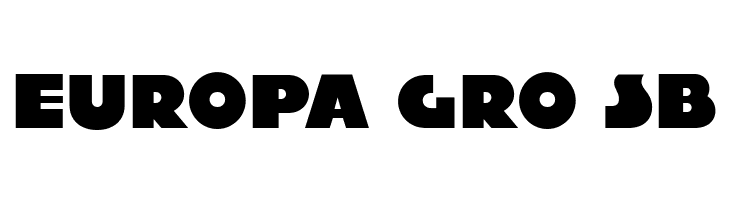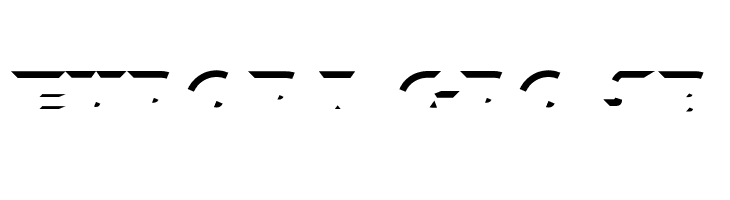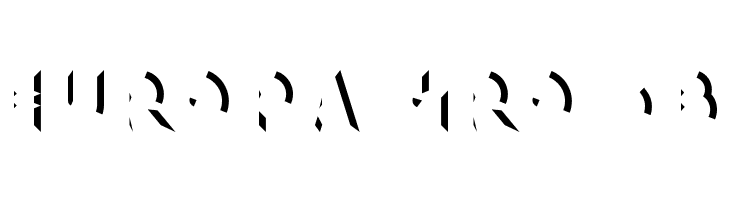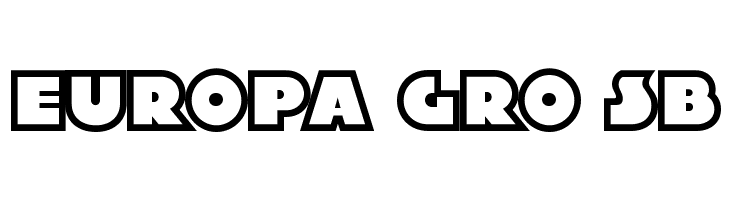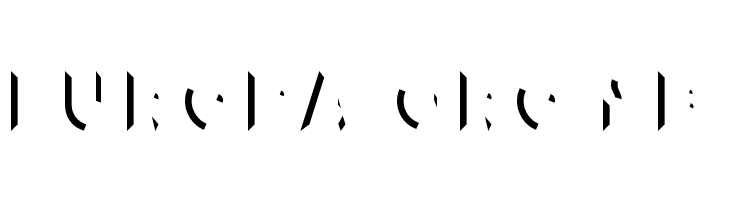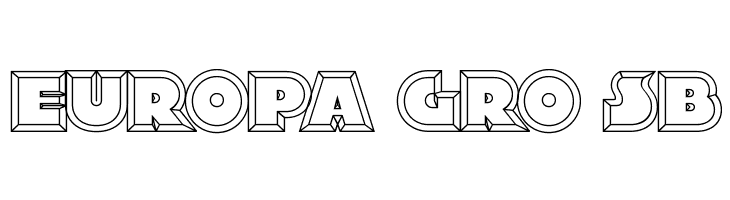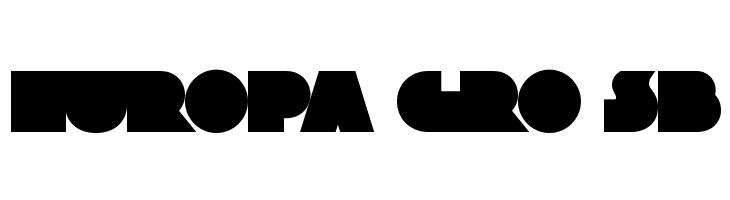
XylitolSolo-Regular Font
A bold, geometric font with a modern and impactful style.
Xylitoledo Font
A bold, playful font with whimsical decorative elements.
XylitolFront-Regular Font
A bold, geometric font with strong, rounded characters and a modern style.
XylitolBack-Regular Font
A bold, geometric font with strong circular and angular forms.
XylitolOutline-Regular Font
A bold, geometric font with a strong outline and modern appeal.
XylitolHollow-Regular Font
A bold, 3D hollow font with a geometric and retro-futuristic style.
XylitolLeft-Regular Font
A modern, stencil-like font with bold geometric shapes and sharp edges.
XylitolStripe-Regular Font
A bold, striped, and angular font with a modern, dynamic style.
XylitolRight-Regular Font
A modern, stencil-like font with geometric cuts and a bold presence.
XylitolUp-Regular Font
A modern, geometric font with sharp angles and clean lines.
XylitolDown-Regular Font
A futuristic, geometric font with sharp angles and a modern aesthetic.